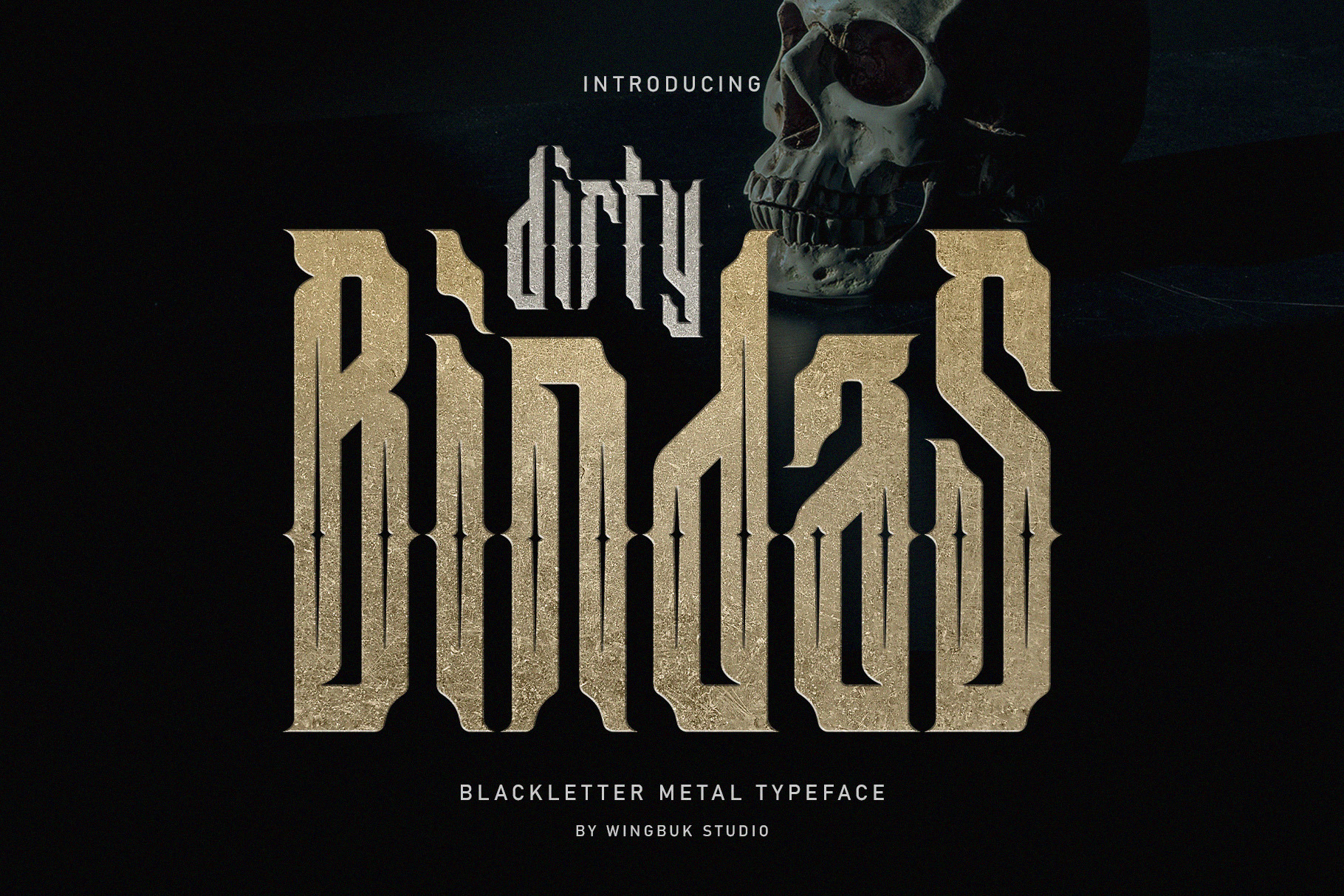
Bindas | Blackletter Font
Bindas is a high quality blackletter typeface for your designs, with metal and gothic accents to make your designs even more exclusive. Can be use for various designs such as band logos, cloting, even film covers or posters.
No Punctuation !